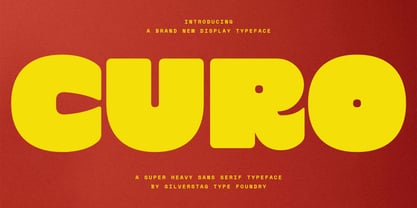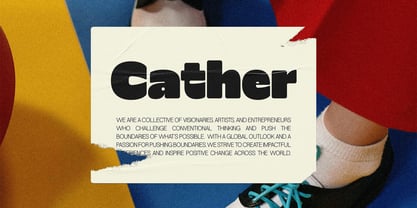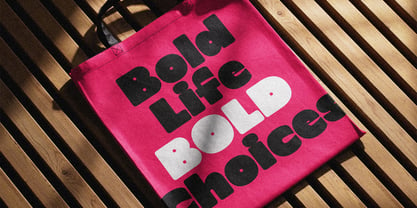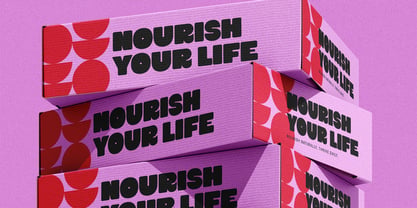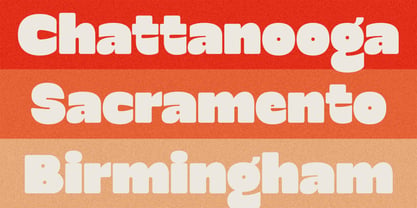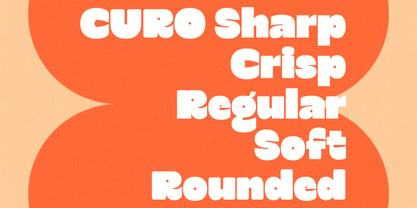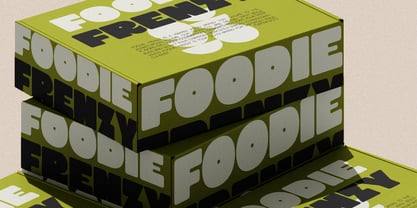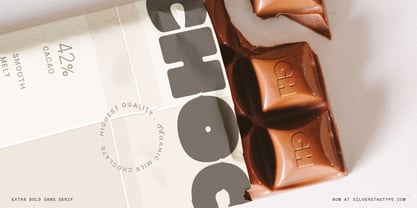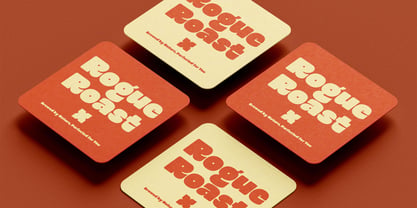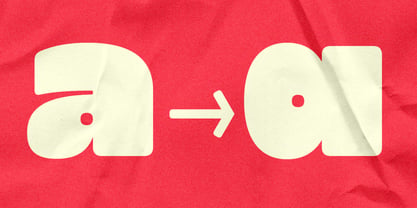
SLTF Curo
by SilverStag
The SLTF Curo Font Family was designed by SilverStag and published by SilverStag. SLTF Curo contains 5 styles and family package options. More about this family
SLTF Curo is a Heavy Display Typeface built around one uncompromising idea — that a single extreme weight should be able to carry any brand, in any direction, without compromise. It comes in five corner style variants that give designers complete tonal control within one cohesive family. THE FIVE STYLES Every variant shares the same super heavy mass, large x-height, and tight counter structure. What shifts is the corner — and with it, the entire personality of the font. Curo Sharp — hard-edged, angular, high tension. Built for streetwear, music, and brands that don't soften anything. Curo Crisp — slightly eased corners with all the sharpness intact. A refined edge for editorial and premium brand design. Curo Regular — the balanced center. Confident and versatile without leaning in either direction. Curo Soft — warm and approachable, with enough weight to still command attention. Curo Rounded — full, voluminous, almost tactile. The kind of bold that feels friendly and powerful at once. WHAT IT'S BUILT FOR Brand identity and logo design Packaging and product labels Posters and event collateral Editorial headlines and magazine layouts Apparel, merchandise, and print Social media and digital campaigns DESIGN DETAILS Curo's large x-height and tight counters ensure maximum visual impact at display sizes. A distinctive lowercase 'g' and an alternate single-story 'a' give it a typographic character that elevates it beyond a straightforward heavy sans. The overall construction is retro-modern — expressive without being decorative, bold without being blunt. The five-style system functions as a complete design toolkit. Each variant is distinct enough to carry a different brand energy, yet cohesive enough to be layered across a single project for typographic contrast.
SLTF Curo